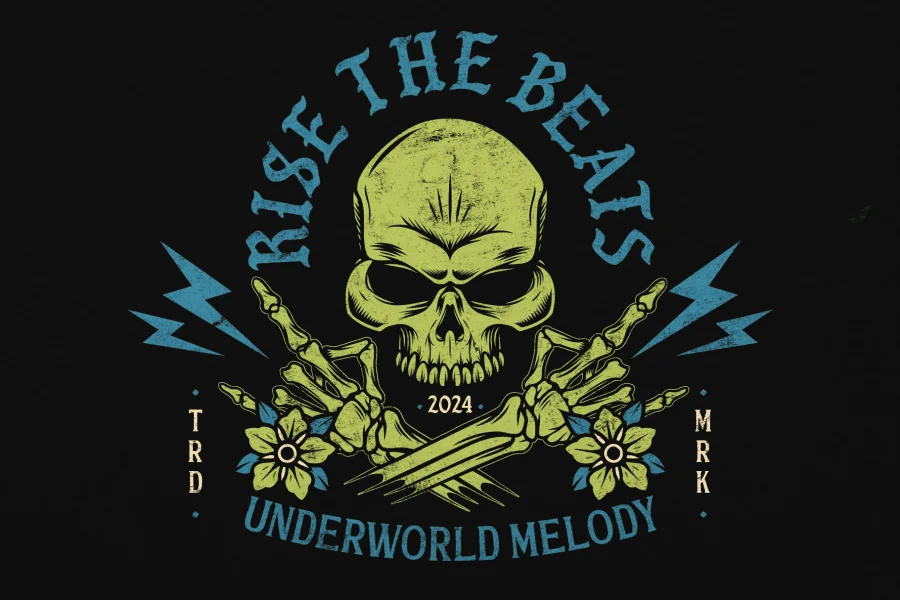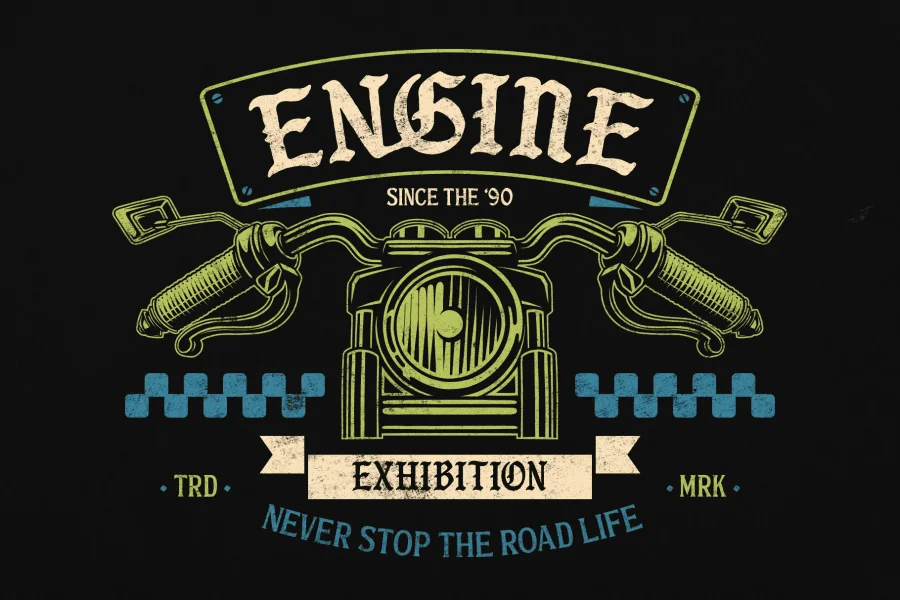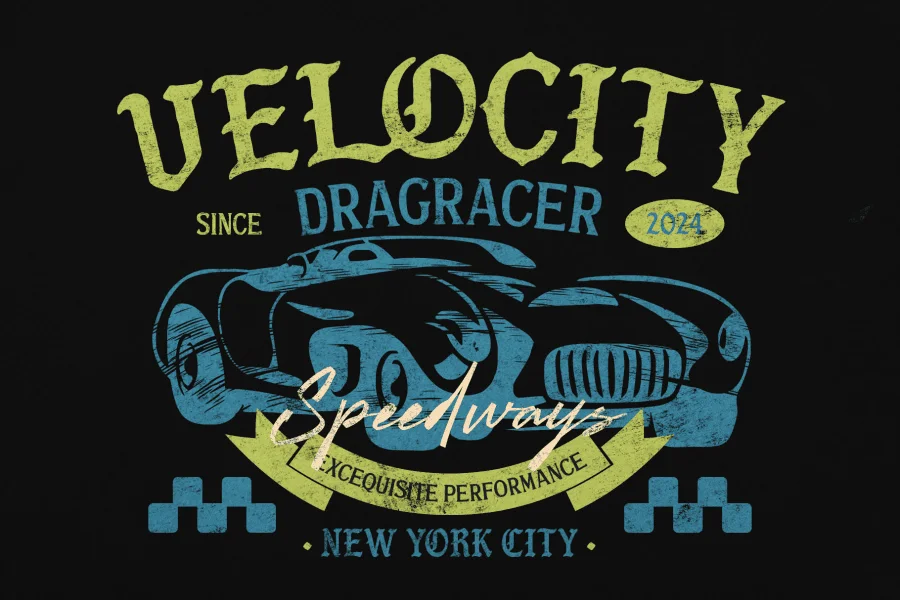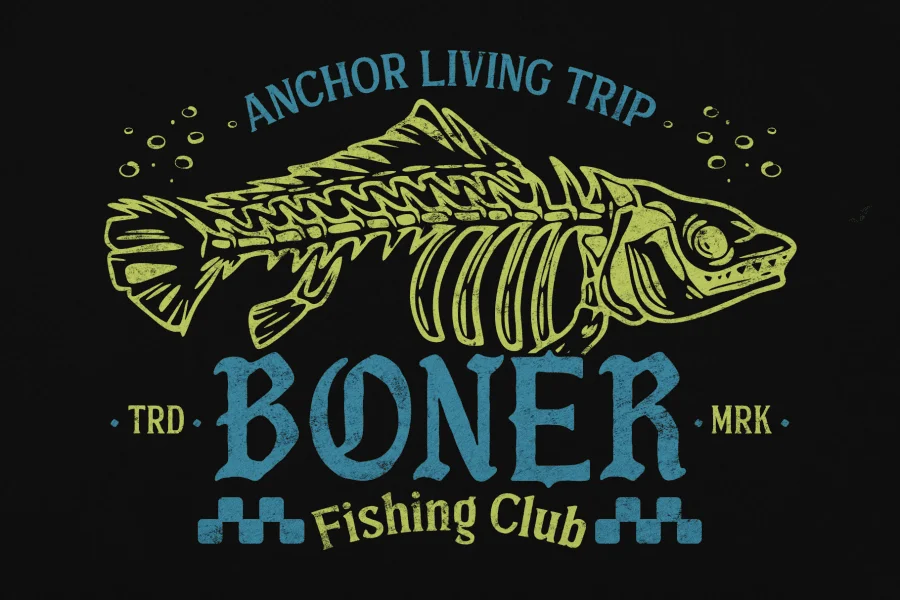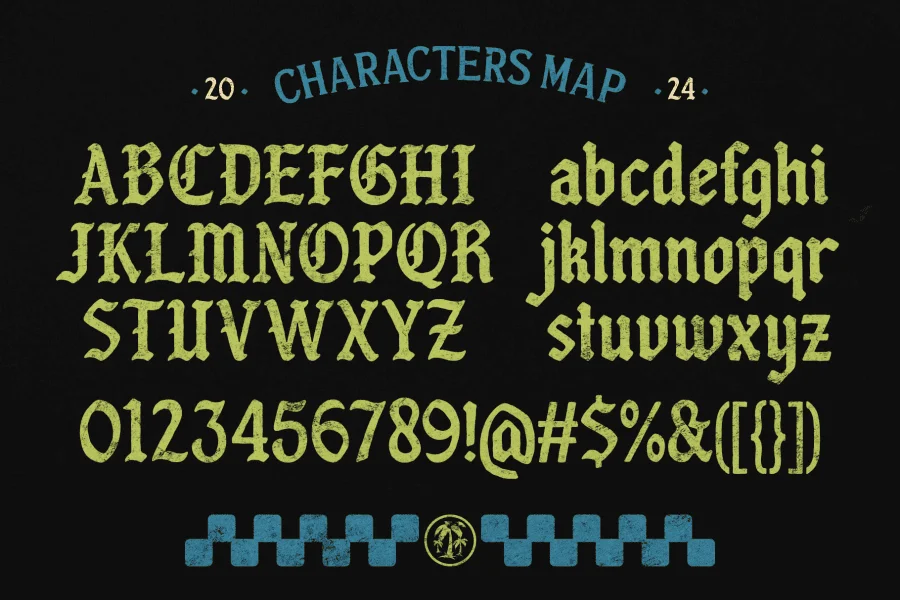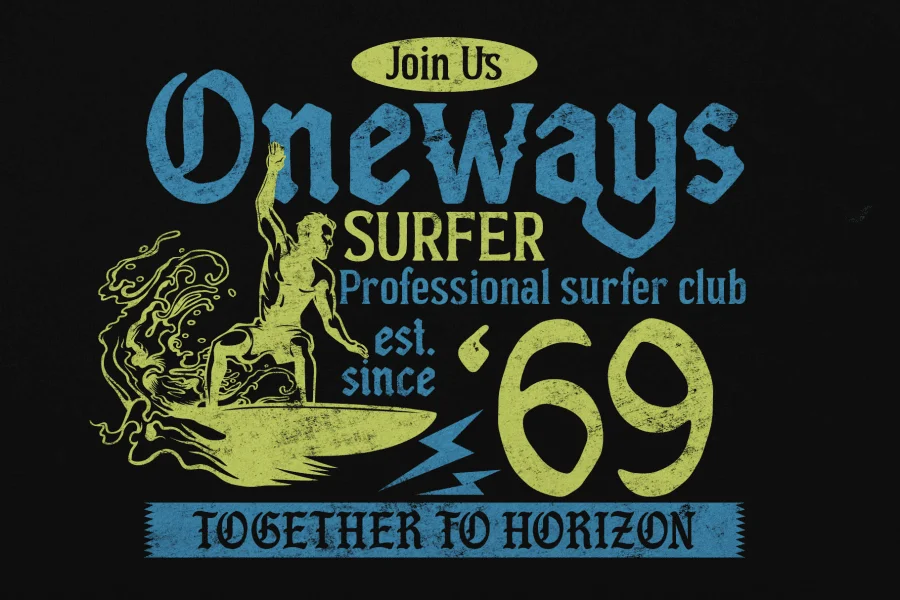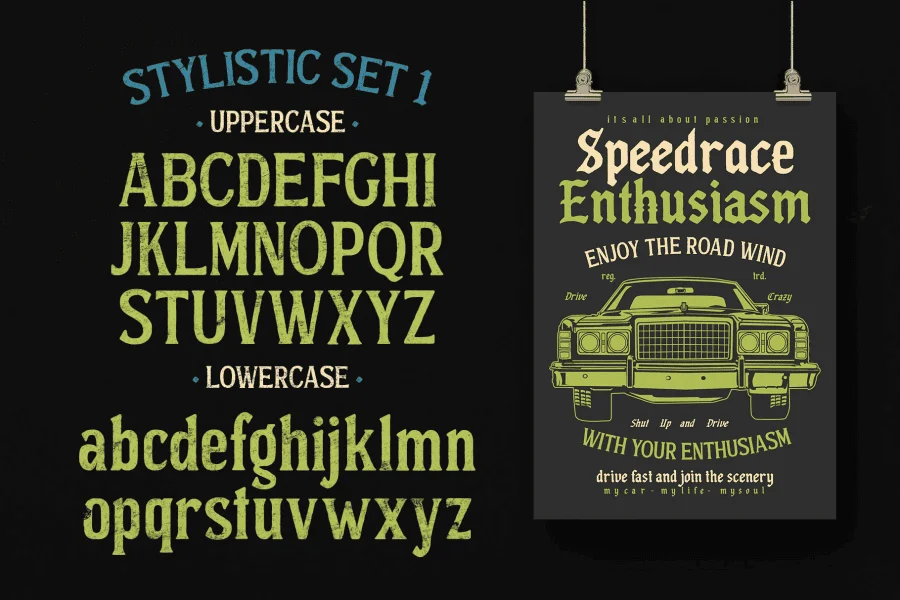
Hold Money Blackletter Typeface is a bold, rough vintage-inspired blackletter font designed to make a statement. Drawing on the classic elegance of Gothic typefaces with a rugged edge, this font blends traditional calligraphy with a distressed, worn look that exudes authenticity and grit. Perfect for branding, posters, packaging, and apparel, Hold Money adds a rebellious, old-world charm to any project.